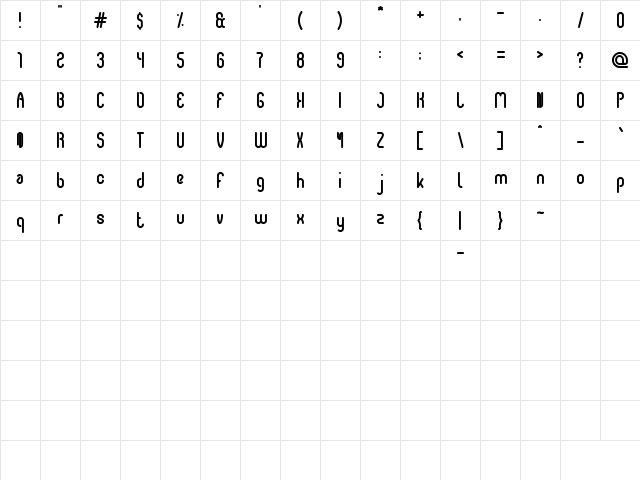
airwaves Regular Free Font
airwaves Regular
Design Context for airwaves
airwaves is a composed and adaptable typeface that performs quietly and consistently across a wide range of design contexts.